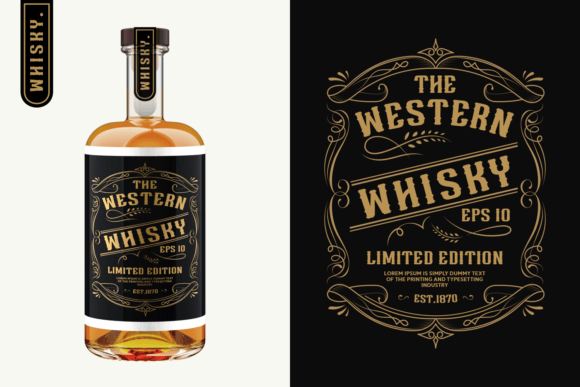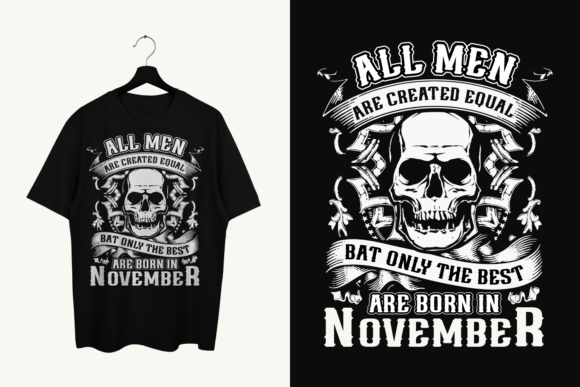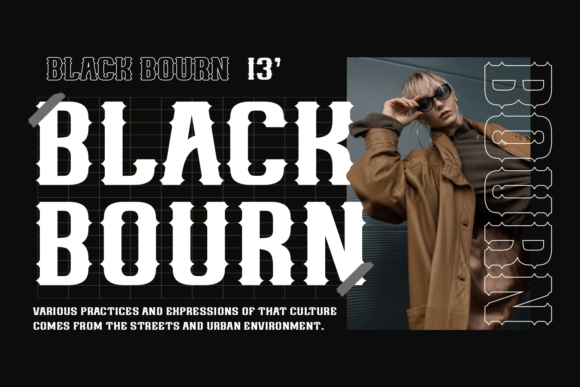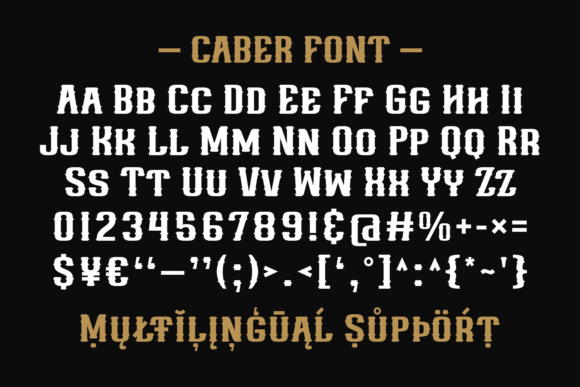
Caber Font: A Modern Twist on Traditional Blackletter Style
In the world of typography, few fonts have managed to strike a balance between tradition and modernity as effectively as Caber Font. This contemporary take on the classic blackletter style has been turning heads among designers and crafters alike, and for good reason. By seamlessly merging the boldness and intricate details of traditional Gothic fonts with modern design elements, Caber has created a unique and versatile aesthetic that is both strong and elegant.
The Evolution of Blackletter Fonts
Blackletter fonts have a rich history that dates back to the Middle Ages. Characterized by their bold, dramatic strokes and intricate details, these fonts were originally used for formal documents and literary works. Over time, however, they fell out of favor, and their use was largely limited to niche applications such as calligraphy and specialty design projects.
In recent years, however, there has been a resurgence of interest in blackletter fonts, driven in part by the growing popularity of vintage and distressed design aesthetics. Designers and crafters are once again turning to these classic fonts as a way to add a touch of history and sophistication to their work.
Introducing Caber Font
Caber Font represents a significant departure from traditional blackletter fonts, while still retaining their historic roots. Its modernized aesthetic is characterized by strong, dynamic strokes that give any text a striking visual impact. Whether used for logos, posters, packaging, or any other design project that requires bold typography, Caber is the perfect choice.
One of the key features that sets Caber apart from other blackletter fonts is its versatility. While traditional blackletter fonts can often come across as heavy-handed or overbearing, Caber’s modern design elements help to balance out its bold strokes, creating a font that is both elegant and refined.
Design Elements and Characteristics
So what makes Caber Font so unique? Here are just a few of the design elements and characteristics that set it apart:
- Strong, dynamic strokes: Caber’s bold strokes give any text a striking visual impact, making it perfect for designs that require attention-grabbing typography.
- Intricate details: Caber’s intricate details add a level of sophistication and elegance to any design, making it ideal for high-end branding and packaging projects.
- Modern design elements: Caber’s modern design elements help to balance out its bold strokes, creating a font that is both elegant and refined.
- Versatility: Caber is a highly versatile font that can be used for a wide range of design projects, from logos and posters to packaging and more.
Applications for Designers and Crafters
Caber Font is an incredibly versatile font that can be used for a wide range of design projects. Here are just a few examples of how designers and crafters can use Caber:
- Logo design: Caber’s bold strokes and intricate details make it perfect for logos that require a strong, attention-grabbing presence.
- Poster design: Caber’s striking visual impact makes it ideal for posters and other large-format designs.
- Packaging design: Caber’s elegant, refined aesthetic makes it perfect for high-end packaging projects that require a touch of sophistication.
- Calligraphy and lettering: Caber’s intricate details and bold strokes make it a great choice for calligraphy and lettering projects.
Caber Font represents a bold new take on the traditional blackletter style, merging the best of both worlds to create a unique and versatile aesthetic. With its strong, dynamic strokes and intricate details, Caber is the perfect choice for designers and crafters looking to add a touch of history and sophistication to their work. Whether used for logos, posters, packaging, or any other design project that requires bold typography, Caber is sure to make a lasting impression.